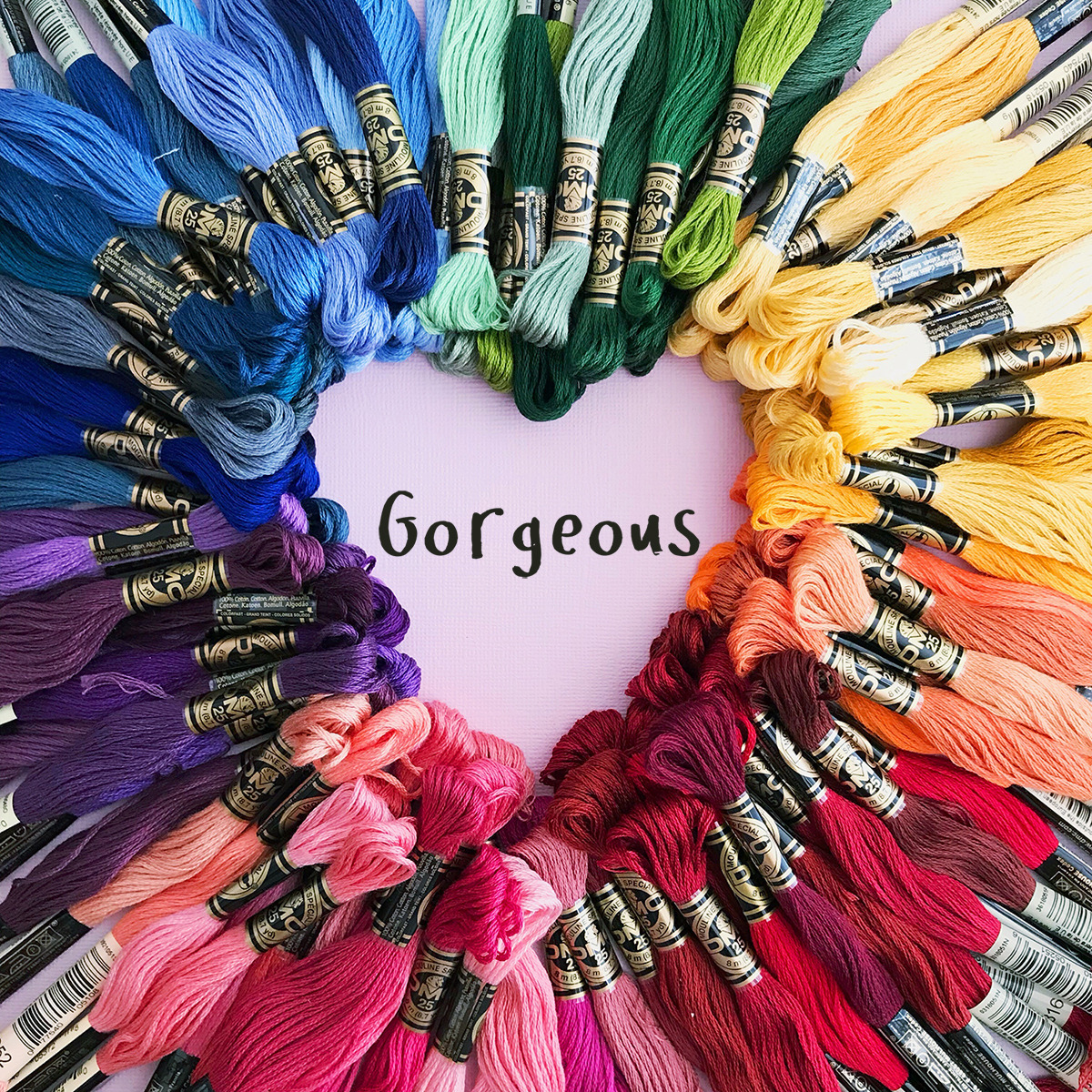
Gorgeous Handwritten Brush Font
A handwritten font with jagged edge detail. This playful font would look great in your print, mug or invitation designs.